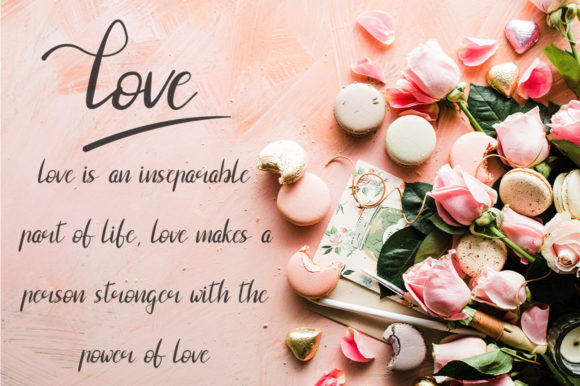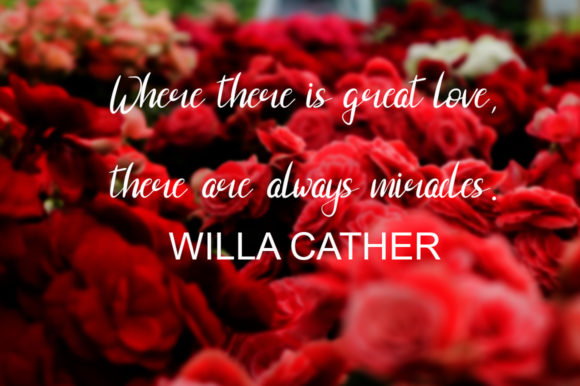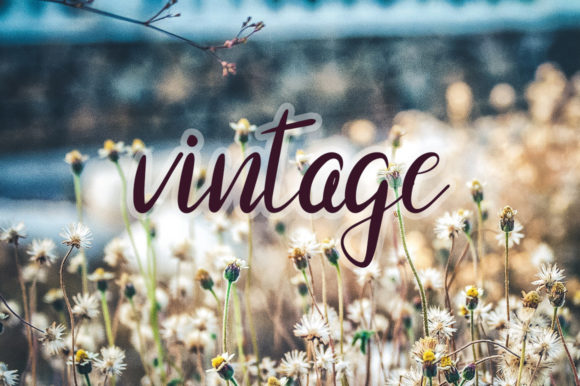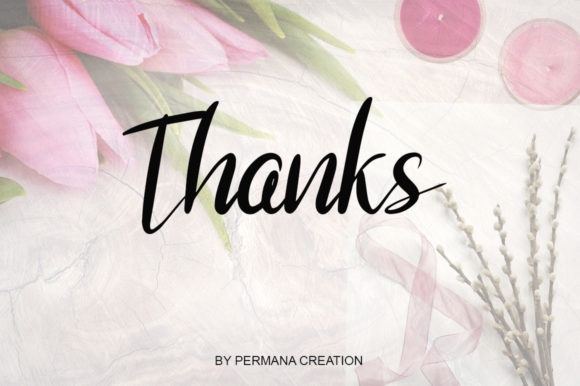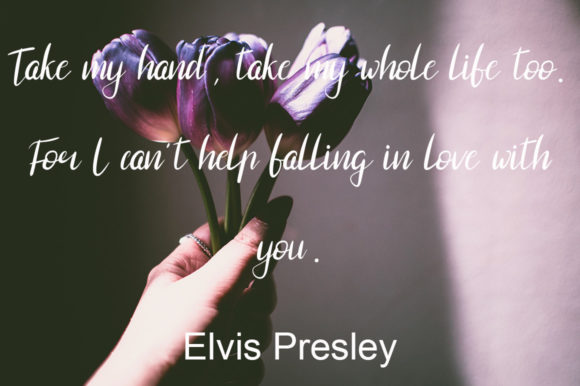
About Loved Font
Loved is a gorgeous script font that is suitable to be used for every expression of romanticism. Fall for its ravishing style and use it to create gorgeous wedding invitations, beautiful stationary art, eye-catching social media posts, and much more!Â